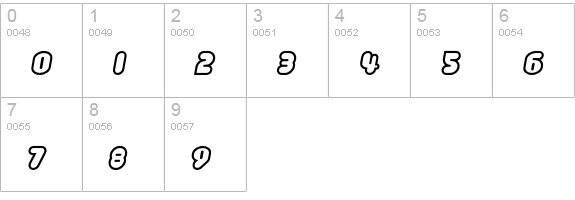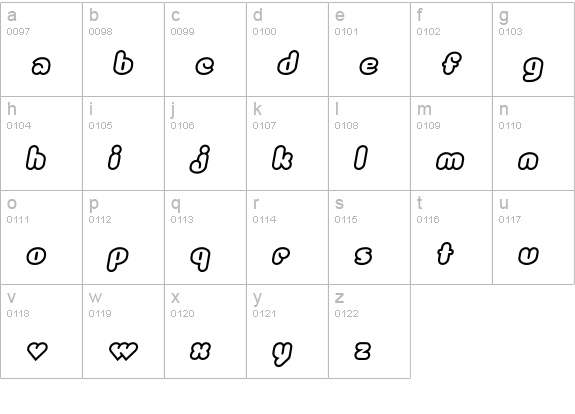
Luvbug-Outline Font Details
Luvbug-Outline font is a whimsical and playful typeface that exudes charm and character. Its unique design features a delicate outline that adds a touch of elegance to any project. Perfect for adding a fun and lighthearted feel to your designs, this font is versatile and eye-catching. The best part? Luvbug-Outline font is completely free to download at FontsMarket.com! Whether you're working on a creative project, designing invitations, or simply looking to add a touch of personality to your work, this font is a fantastic choice. Don't miss out on the opportunity to enhance your designs with this delightful typeface. Download Luvbug-Outline font today and let your creativity shine!